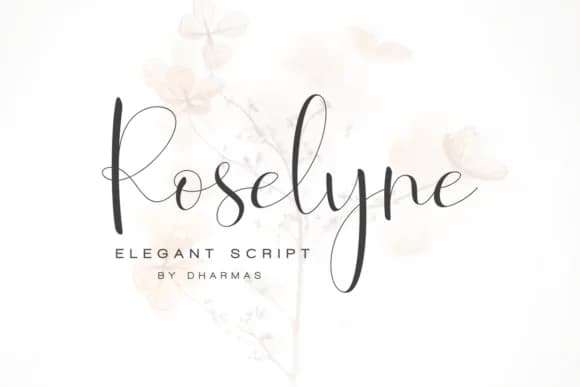
Roselyne Script Font by Dharmas Studio is a flowing calligraphic typeface that brings contemporary elegance and refinement to any creative project. This versatile font combines the fluid elegance of traditional handwriting with modern sophistication, making it an excellent choice for designers seeking refined letterforms with organic movement and distinctive visual interest. The font works beautifully across wedding invitation suites where its graceful strokes add personality and distinction to formal announcements. It's equally suited for luxury cosmetics labeling, engagement announcement cards, and event stationery where a touch of refined charm enhances brand identity and conveys a sense of careful curation. Designers frequently use Roselyne for boutique business card designs and anniversary celebration graphics that require a more personal, artistic touch than standard typefaces. The font's flowing nature also lends itself particularly well to custom greeting card layouts and special occasion materials. Whether you're creating elegant menu designs, handwritten-style social media templates, or custom packaging labels that demand visual attention, Roselyne delivers the sophisticated character your projects need. The font's fluid letterforms ensure reliable legibility while maintaining their expressive, refined aesthetic throughout various applications and design contexts. Bring the elegance of hand-lettered script to your designs, explore Roselyne Script Font on Creative Fabrica.
Roselyne Script Font is a script font that shines as a display or heading face. Pair it with a clean sans-serif or serif font for body text β the contrast creates a clear hierarchy while the two styles stay balanced and easy to read.